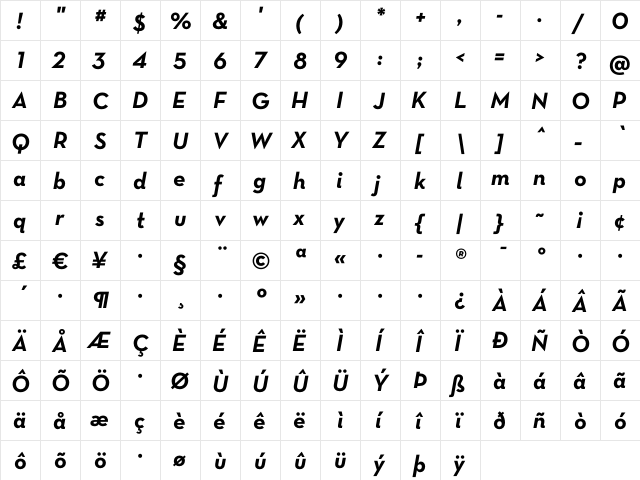
Neutra Text Alt Bold Italic
Bold Italic ·  Christian Schwartz ·
DesignerChristian Schwartz
Design Context for Neutra Text Alt Typeface
Neutra Text Alt takes a measured approach to typography — its balanced proportions and neutral character make it a reliable workhorse for both digital and print work. The dynamic lean of this cut emphasises speed and emphasis in any layout. The heavy weight commands attention and anchors typographic hierarchies.
Pro Tip: Use Neutra Text Alt for emphasis, pull quotes, and subheadings where its slanted energy can add rhythm to the layout.